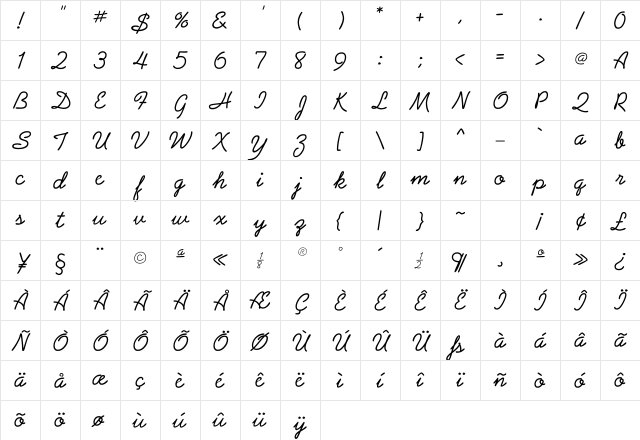
Precipice Regular
Design Context for Precipice
Precipice is a composed and adaptable typeface that performs quietly and consistently across a wide range of design contexts.
Pro Tip: Use Precipice in both headline and body roles to test its range before committing to a single application.